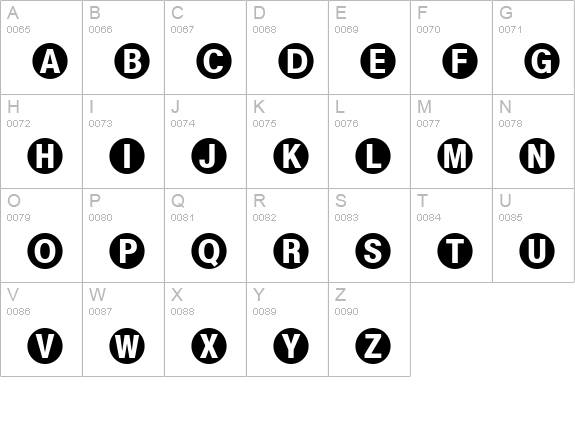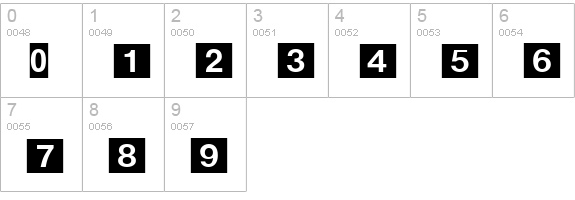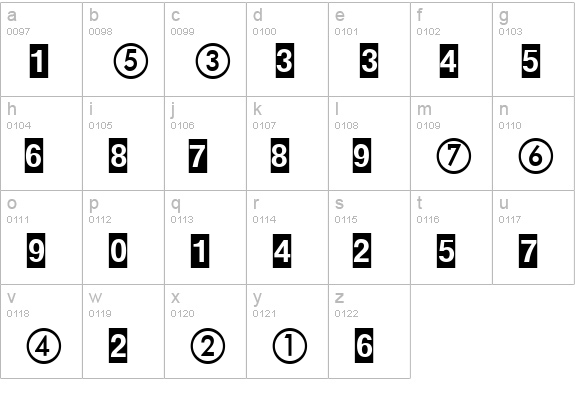
Format Pi One SSi Font Details
Format Pi One SSi font is a modern and sleek typeface that combines minimalist design with a touch of sophistication. With its clean lines and geometric shapes, this font is perfect for creating contemporary and stylish designs. The Format Pi One SSi font is free to download at FontsMarket.com, making it accessible to designers and creatives looking to add a unique and versatile font to their collection. Its bold yet elegant appearance makes it suitable for a wide range of projects, from branding and advertising to editorial design and web graphics. Whether you're working on a logo, poster, website, or any other creative project, the Format Pi One SSi font is sure to make a lasting impression.